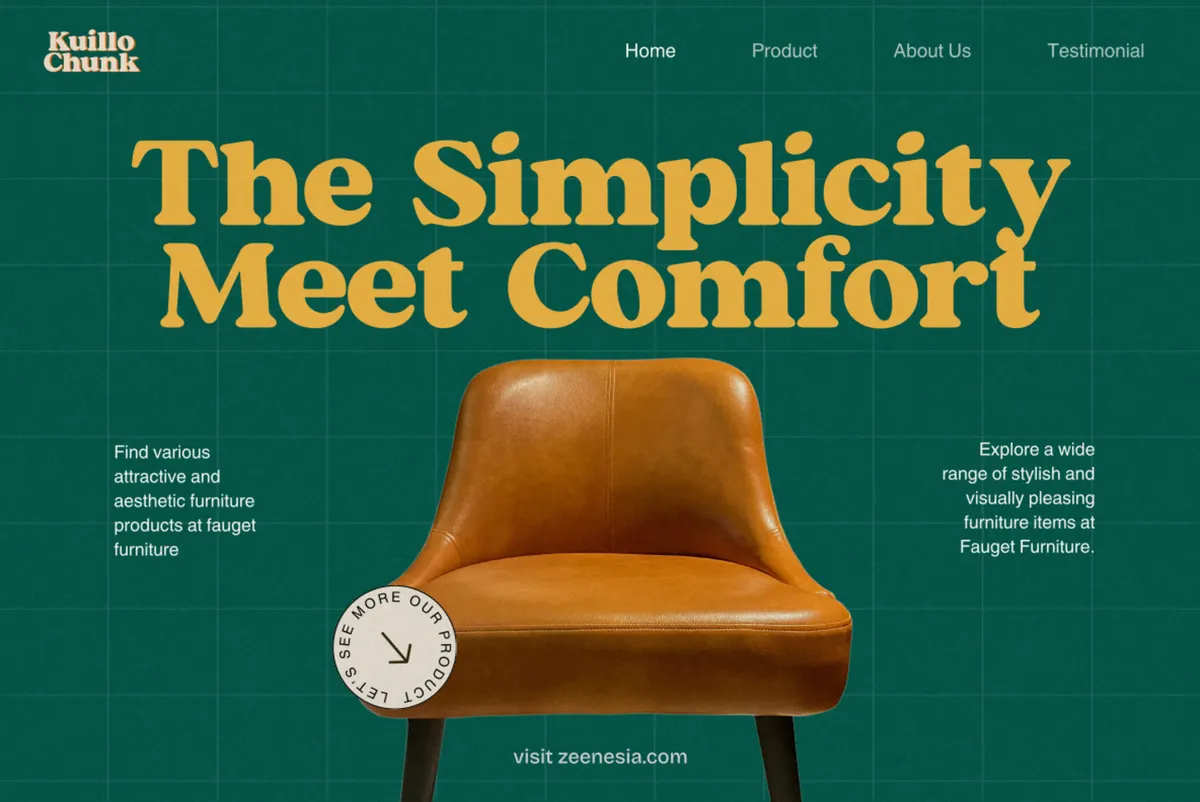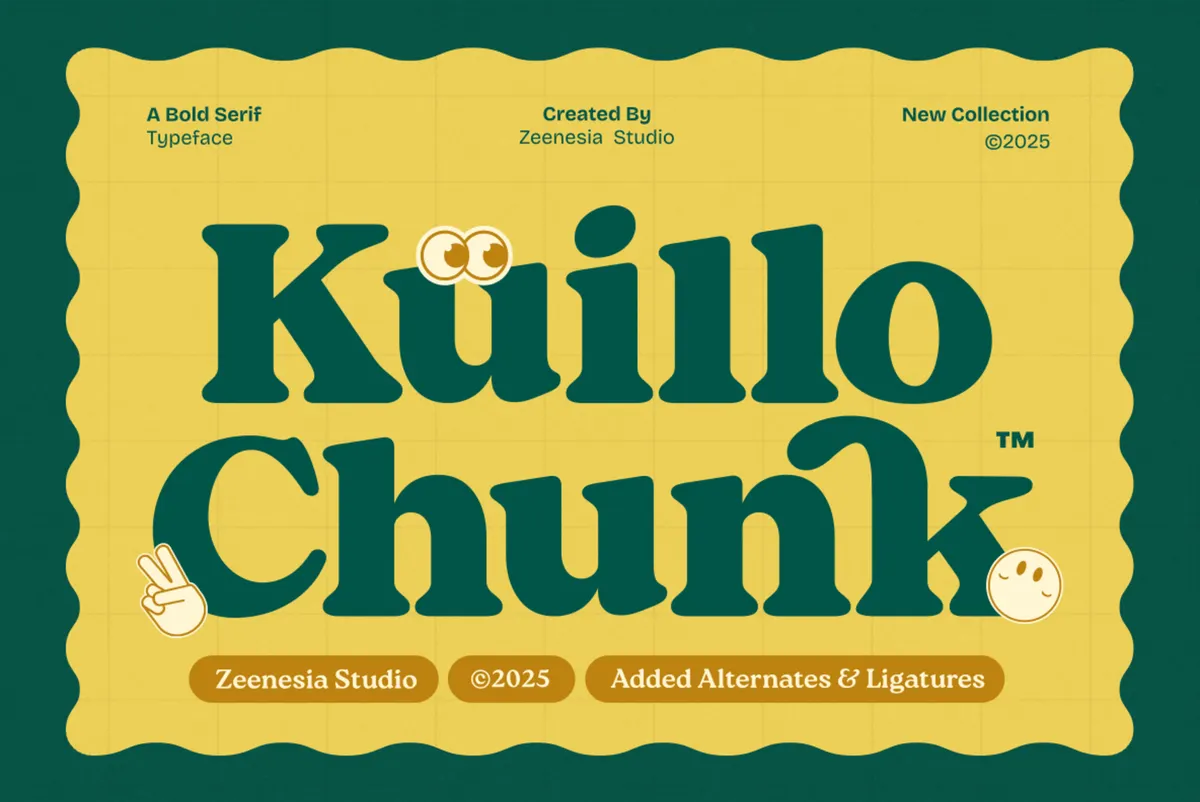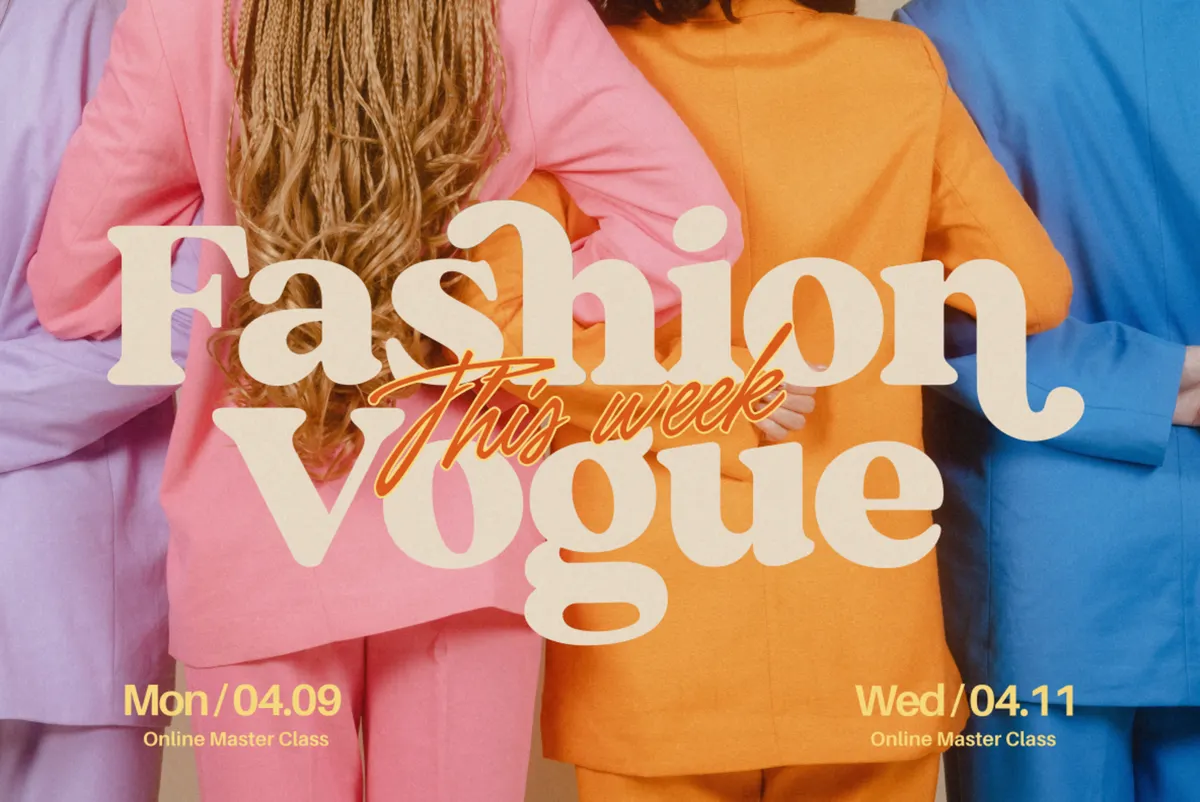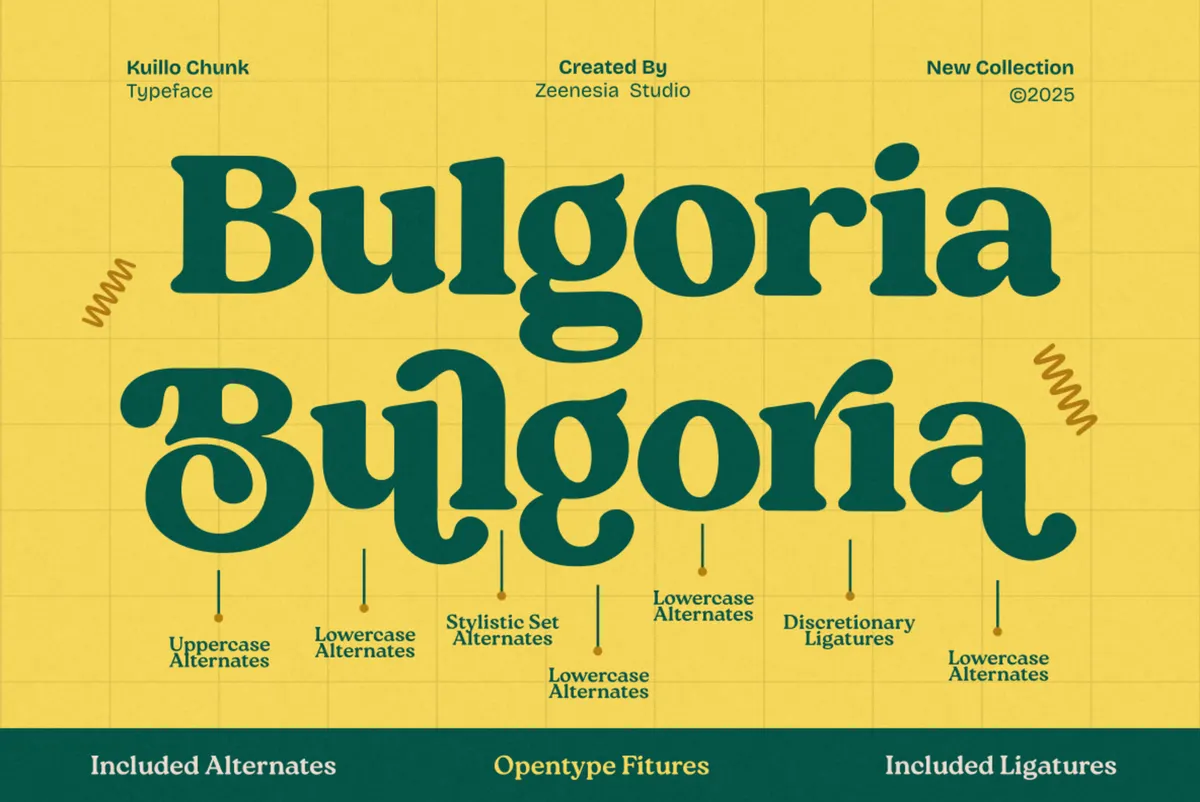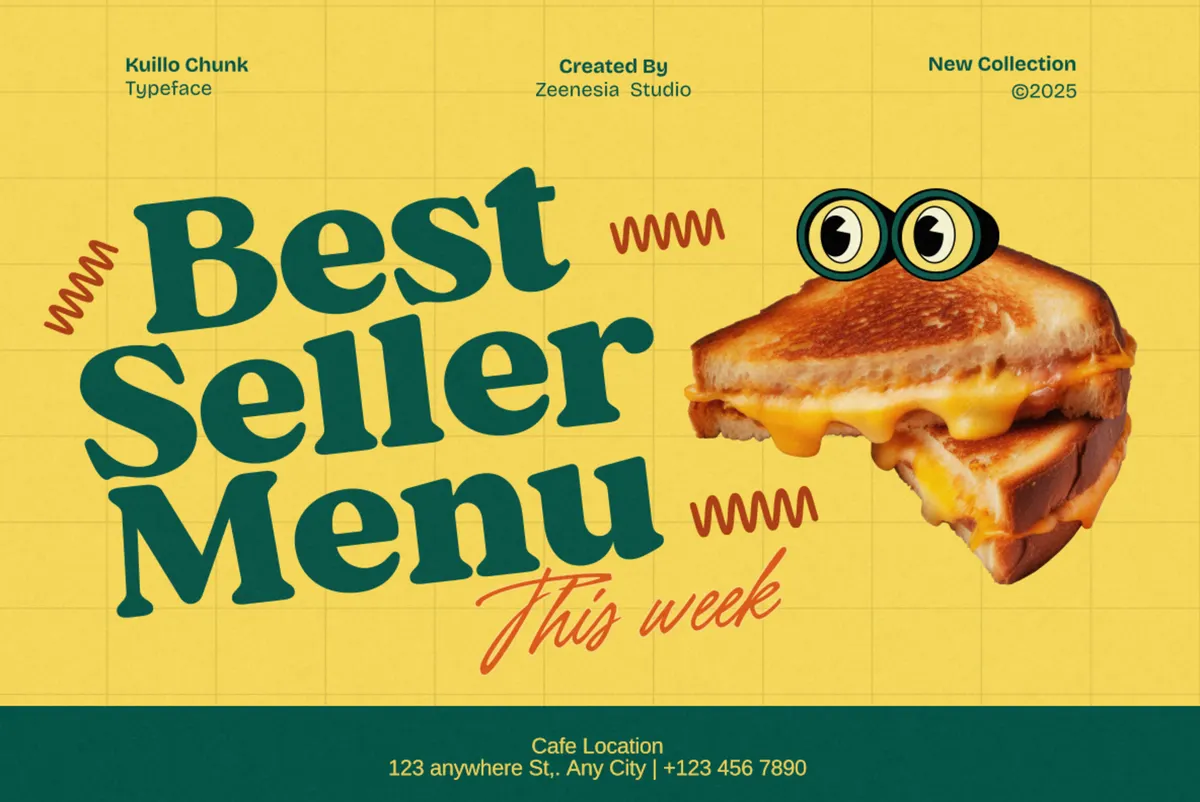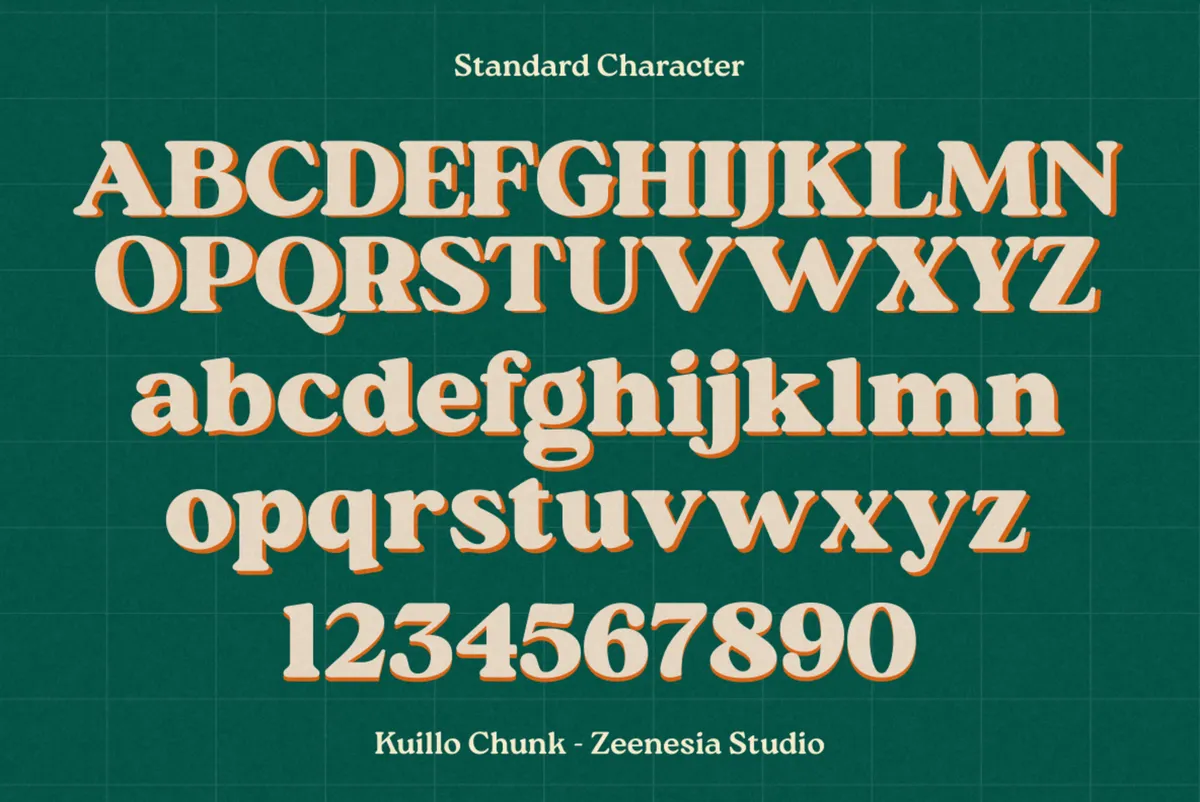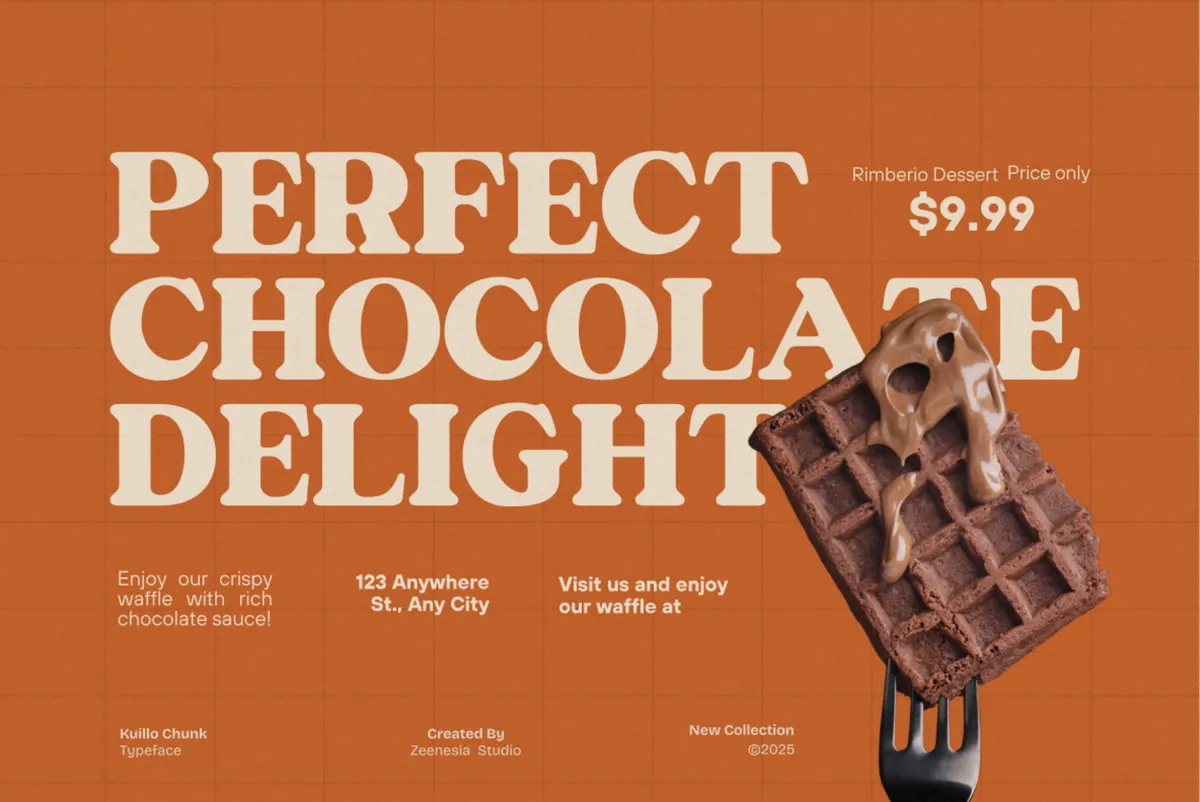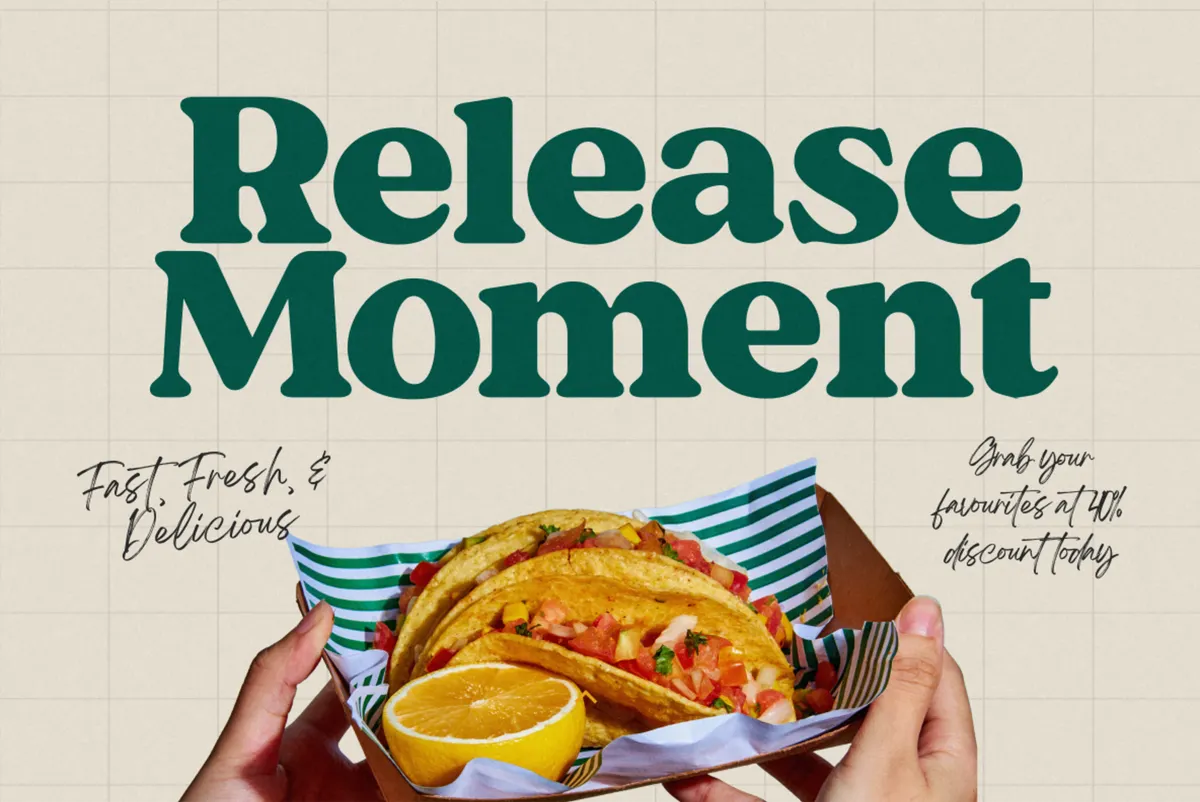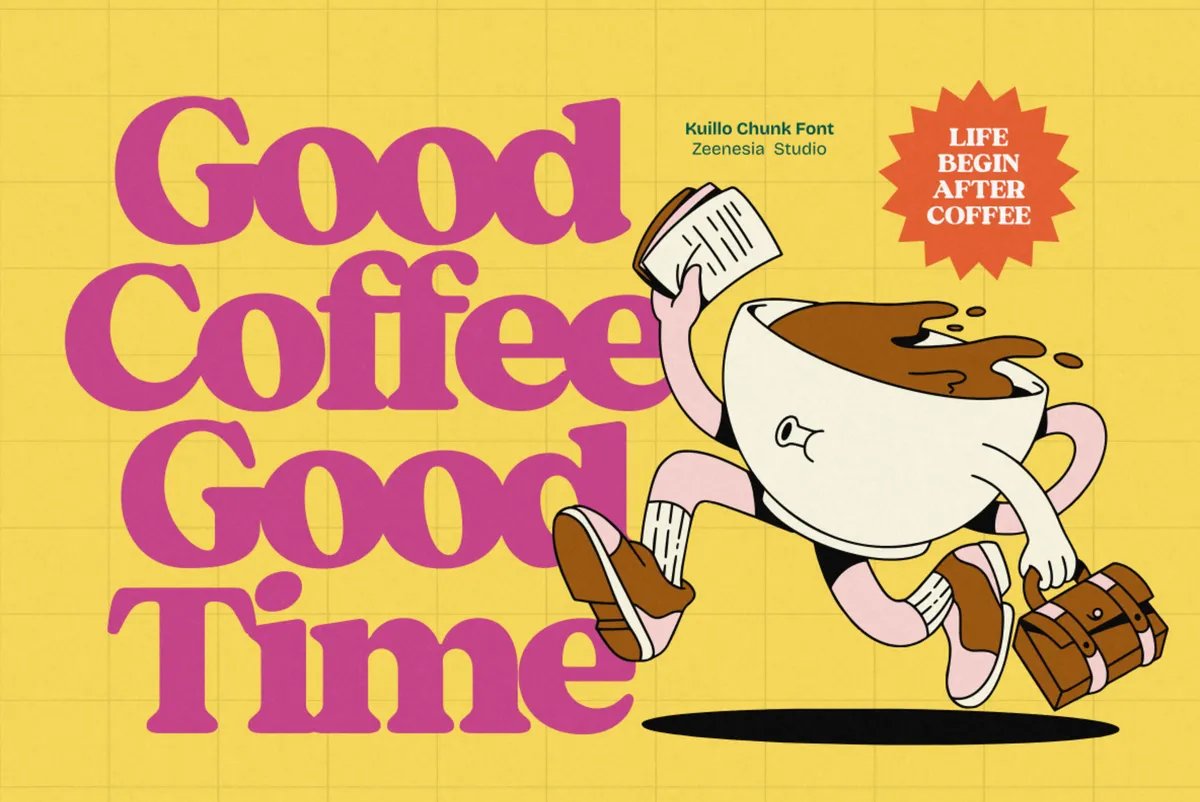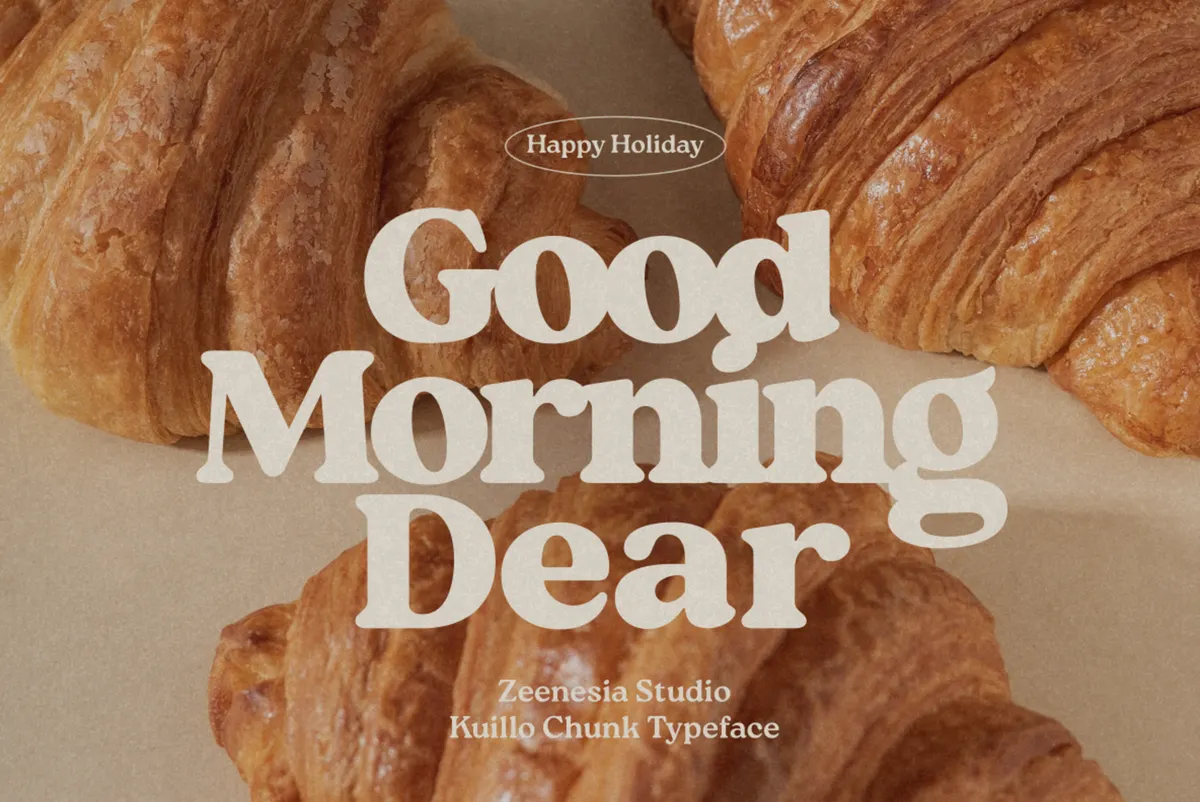
Kuillo Chunk - Decorative Serif Font
Kuillo Chunk builds thick, rounded serif letterforms with a slight retro roundness, closer to a hand-lettered logotype than a straight editorial serif. Discretionary ligatures connect common letter pairs like ch, ck, and ct into single flowing strokes.
A full stylistic alternate set covers both uppercase and lowercase, and a handful of bonus doodle icons ride along in the glyph set for small decorative marks. Use it for branding, packaging, poster and flyer design, social content, and playful editorial or merch graphics.
- Uppercase & lowercase, each with a full stylistic alternate set;
- Numerals, punctuation & symbols;
- Discretionary ligatures on common letter pairs;
- Bonus doodle glyphs;